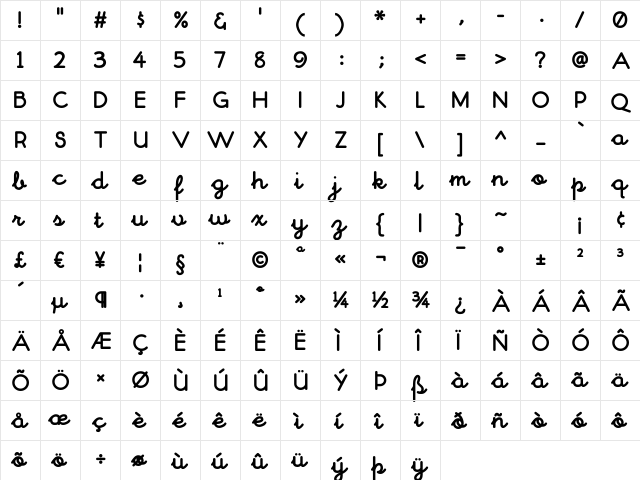
ChitownScript Bold
Design Context for ChitownScript Typeface
ChitownScript brings a calligraphic fluidity to the page — its connecting strokes and expressive curves give it an unmistakably human quality. The heavy weight commands attention and anchors typographic hierarchies.
Font Pairing: Combine ChitownScript with a simple geometric sans for maximum contrast — the tension between flowing curves and clean structure is a classic typographic pairing.
Pro Tip: Use ChitownScript for short runs of text — names, titles, or taglines. Extended body copy in script faces tires the eye quickly.